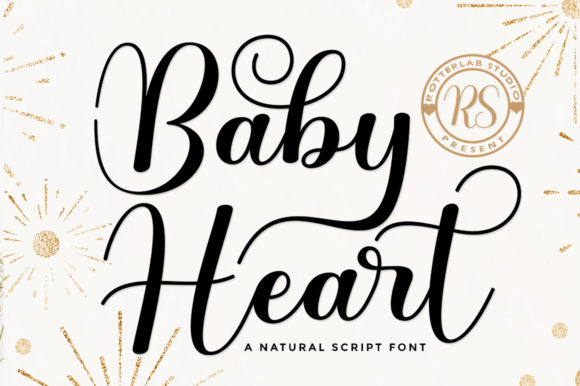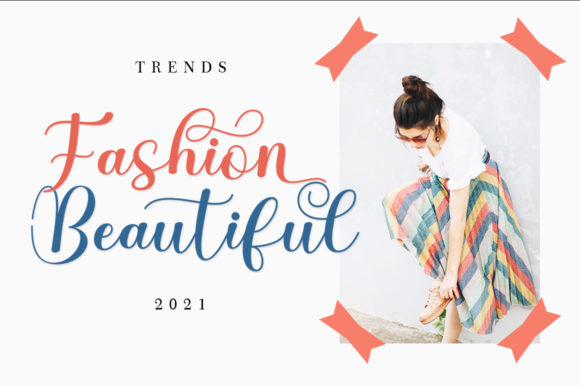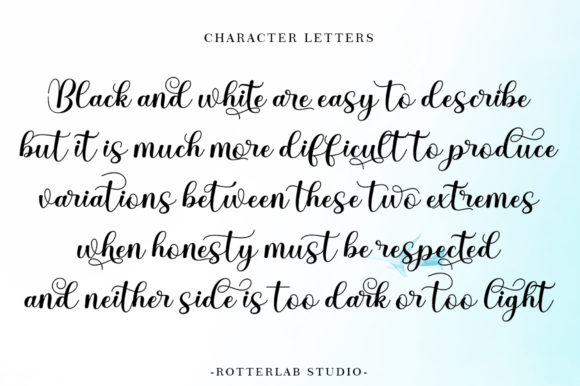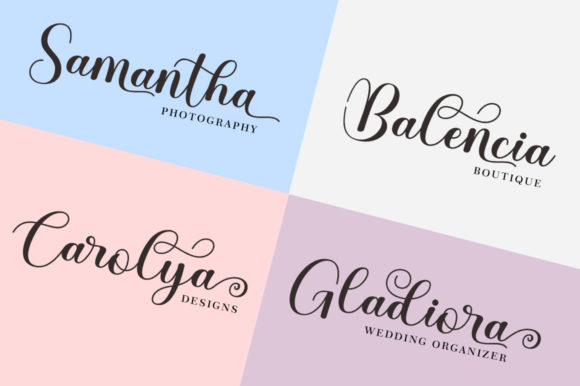
About Baby Heart Font
Baby Heart is a charming and timeless handwritten font that adds a touch of love and sweetness to your designs. With its unique and beautiful letterforms, this font is the perfect choice for creating eye-catching logos, branding materials, and quotes that capture attention.
Every letter in Baby Heart has been carefully crafted with a lovely touch, allowing your designs to come alive with its heartfelt charm. Whether you’re designing a romantic wedding invitation, a heartfelt quote for social media, or a cute logo for a children’s brand, Baby Heart will add a touch of warmth and personality.
One of the notable features of Baby Heart is its PUA encoding. This means that you have easy access to all the glyphs and swashes, allowing you to effortlessly incorporate additional stylistic alternates and decorative elements into your designs. You can explore different variations of each letter and add flourishes and embellishments to create a custom look that suits your project.
When using Baby Heart, keep in mind the overall readability and legibility of your text, especially if using smaller sizes or intricate designs. Adjusting the size and spacing can help ensure that the font remains clear and easy to read. Additionally, consider experimenting with different letter combinations and ligatures to create a flowing and harmonious visual effect.
Baby Heart’s versatility makes it suitable for a wide range of design projects, from romantic and heartfelt themes to cute and whimsical concepts. Its timeless and lovely nature makes it particularly fitting for projects that aim to evoke emotions or convey a sense of tenderness and affection.
In summary, Baby Heart is a lovely and timeless handwritten font that adds a unique and beautiful touch to your designs. Its PUA encoding allows for easy access to glyphs and swashes, enabling you to customize and enhance your designs with additional decorative elements. Let Baby Heart infuse your logos, branding, and quotes with love and warmth, making them truly eye-catching and captivating.